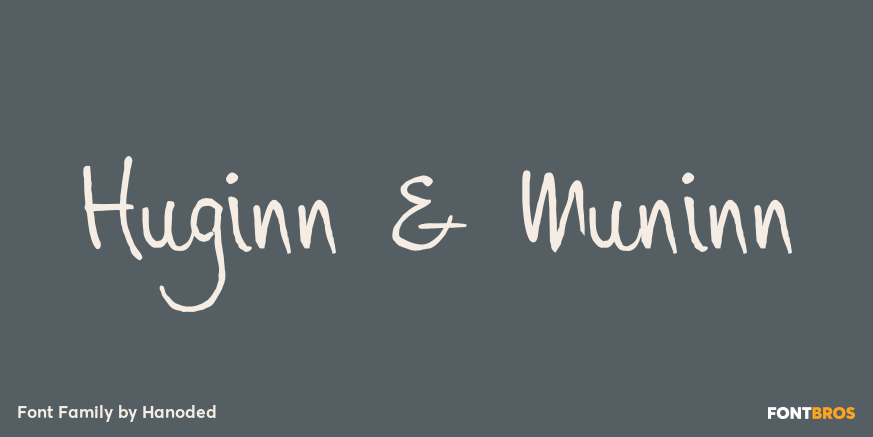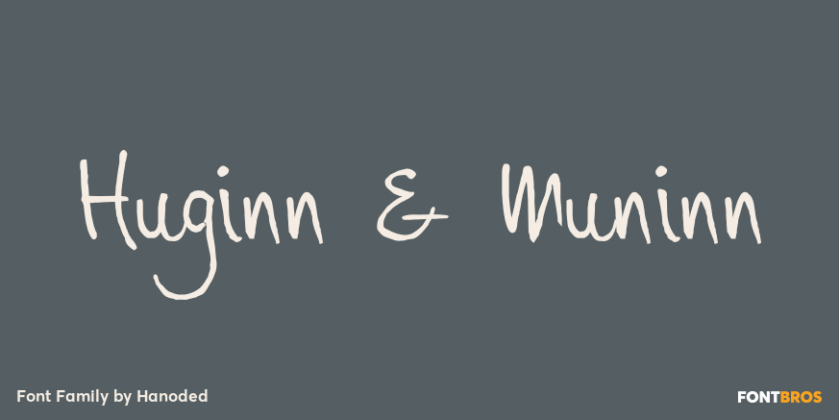
Huginn & Muninn
About Huginn & Muninn
Huginn And Muninn are a pair of ravens that fly all over the world Midgard. They keep the god Odin up to date on the wheelings and dealings of everyone living under the sun. Huginn means \’thought? and Muninn means ?memory? or ?mind? in old Norse. The…